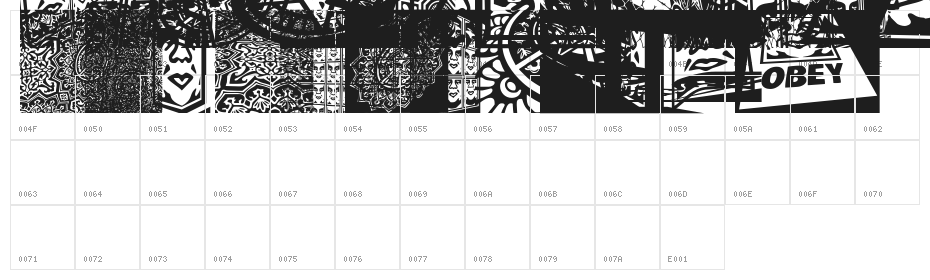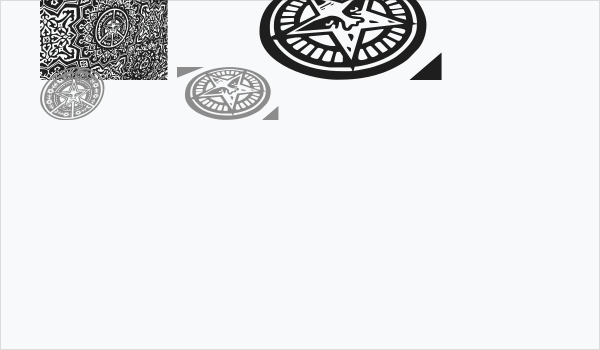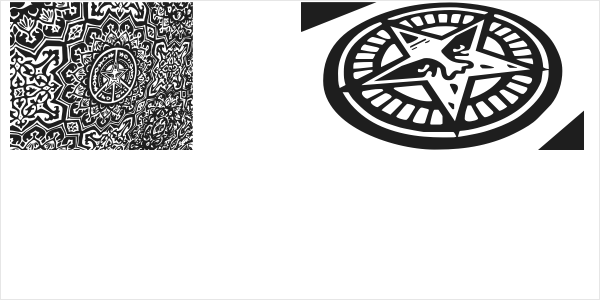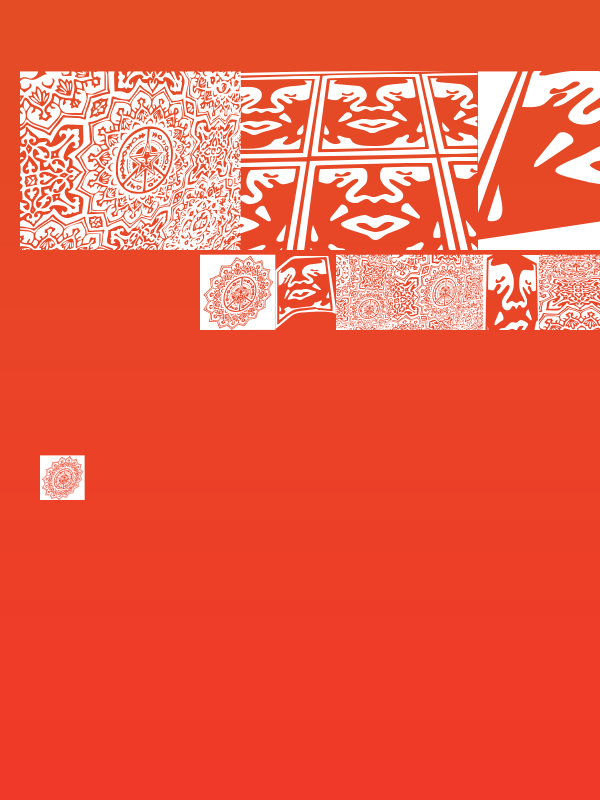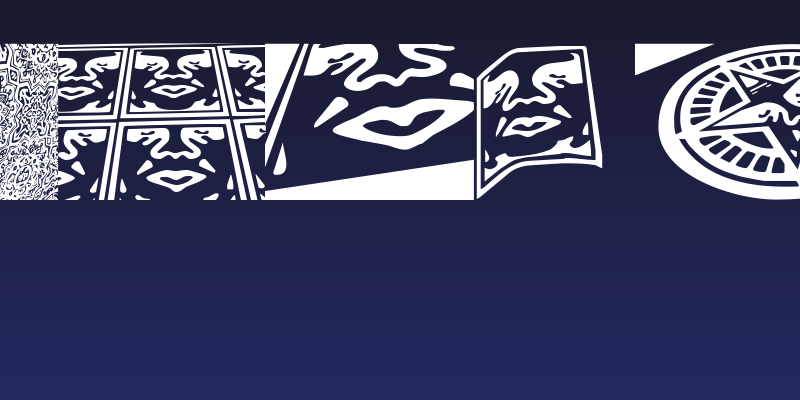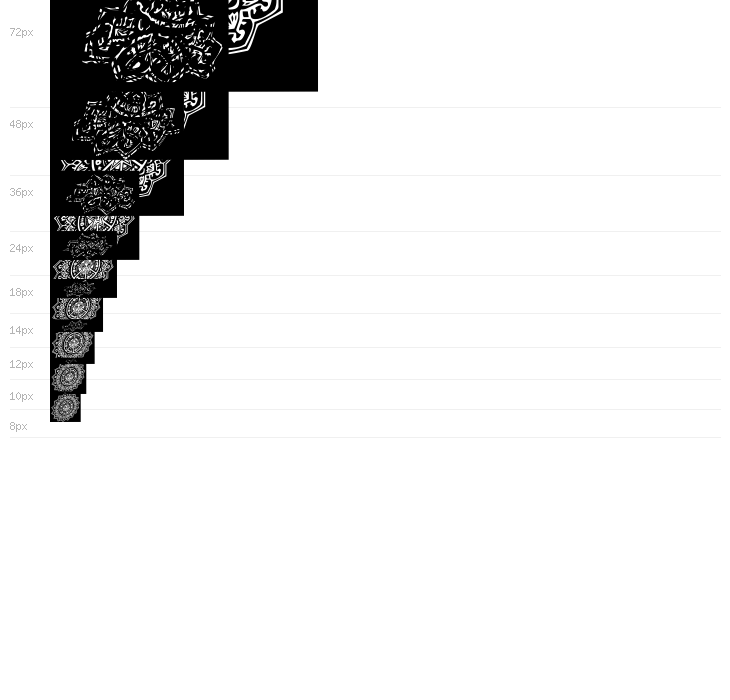
Obey3D Font
✎ Dingbats
| 使用场景 | Logos, Posters, Artistic Projects |
| 推荐项目 | Ideal for artistic projects, posters, album covers, or any design work that requires a bold and unique visual statement. |